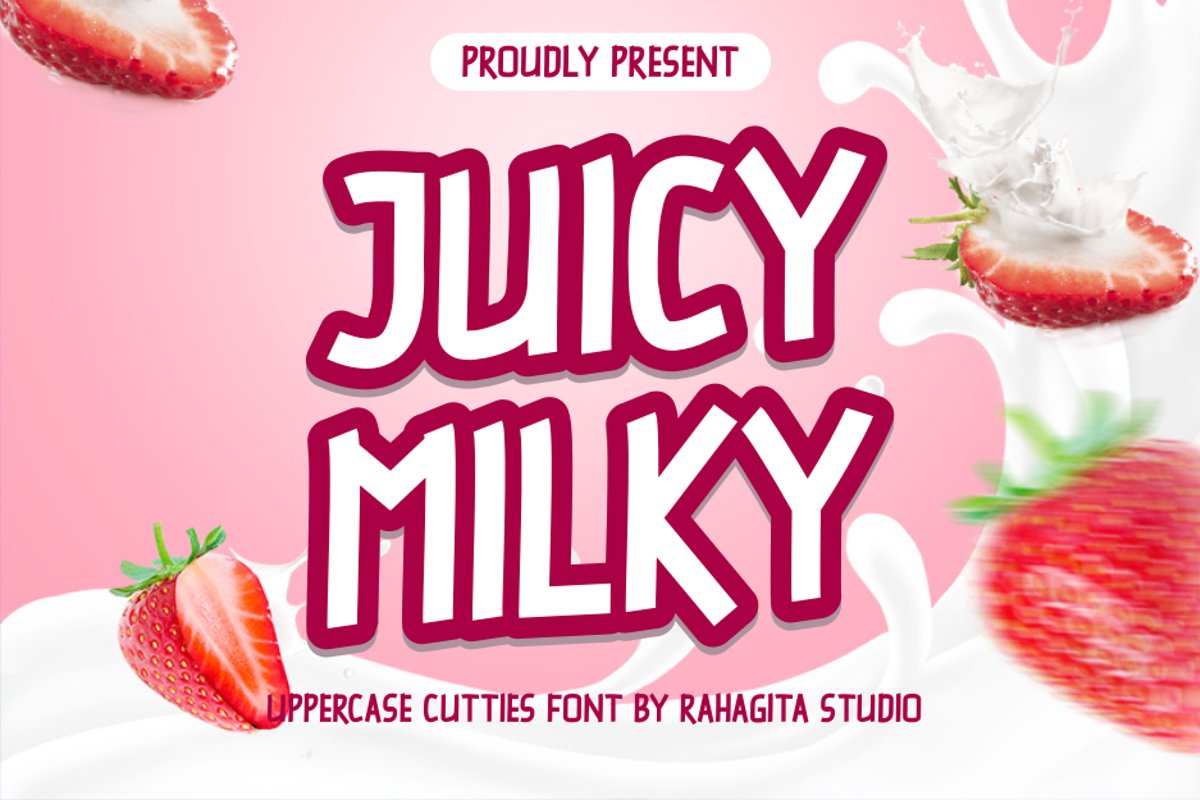
Juicy Milky
JUICY MILKY
Juicy Milky is a cute font that is suitable for  branding, packaging, logos, posters, product names, and others
Rahagita Studio